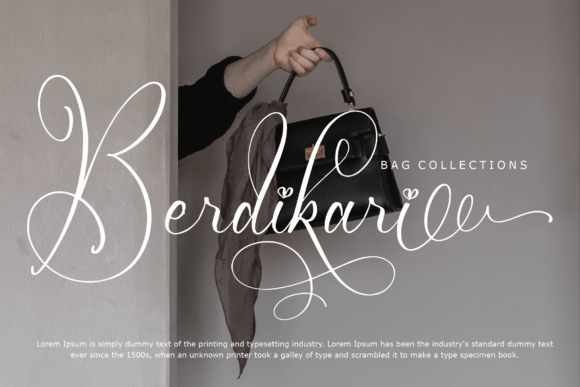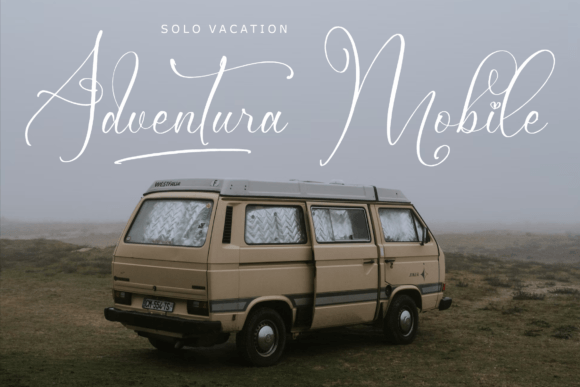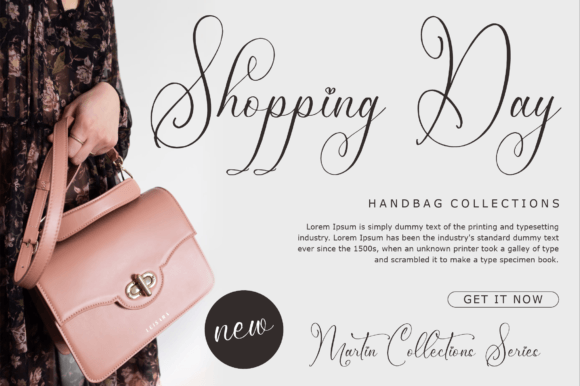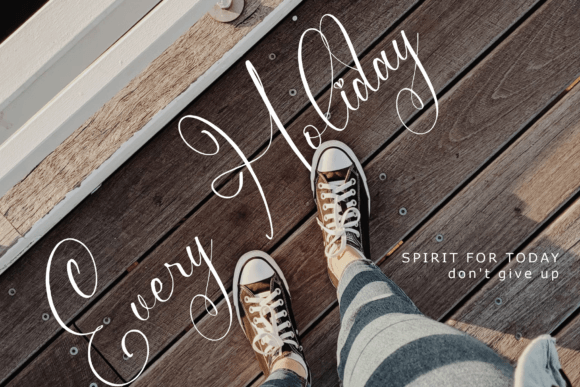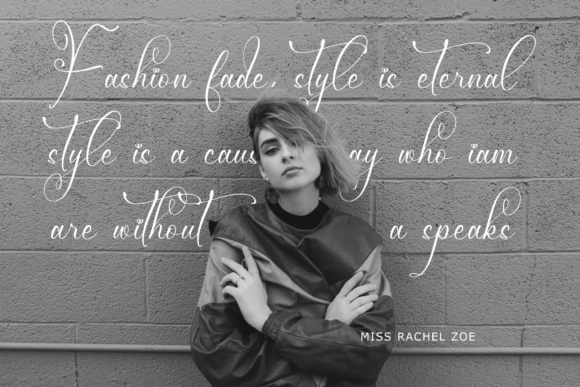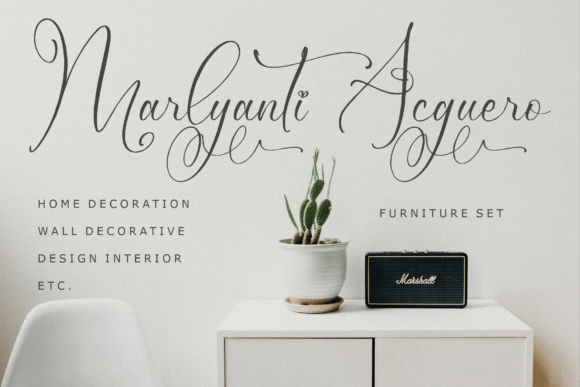
Introduction to Mendikari Font
As a designer, have you ever stumbled upon the perfect font that elevates your entire creative project? For me, that moment came when I discovered the Mendikari Font – a luxury script that exudes elegance and sophistication. Its unique style and modern look instantly caught my attention, and I knew I had to learn more about this design resource.
With its versatility in use, the Mendikari Font is perfect for designing luxury logos, book titles, fashion brand identities, magazine layouts, and more. Its high-quality design makes it an ideal choice for designers seeking to add a touch of luxury to their projects. Whether you’re working on a free download or a paid design, the Mendikari Font is sure to impress with its transparent background and exquisite details.
As a valuable addition to any designer’s toolkit, the Mendikari Font offers endless possibilities for creative expression. In this article, we’ll delve into the world of this stunning typeface and explore its features, uses, and benefits for designers.
Key Features of Mendikari Font
- High-quality design for creative projects, ideal for graphic designers and artists.
- Transparent background, allowing for seamless integration into various design elements.
- Perfect for creating eye-catching titles, headings, and other typography elements in your design project.
Honest Review: Mendikari Font
As a designer, I’m always on the lookout for high-quality design resources to elevate my creative projects. The Mendikari Font is one such find that has caught my attention.
What works well: ✨ The font’s unique blend of modern and traditional elements makes it perfect for projects that require a touch of cultural flair. Its high-quality design ensures seamless use in various creative projects, from branding to editorial content.
Here are some key features that make the Mendikari Font stand out:
- Transparent background: The font’s transparent background allows for easy overlaying on images, making it ideal for creative projects that require visual depth.
However, I do have a few reservations: ⚠️ The font’s limited character set may not be suitable for projects that require a wide range of special characters or symbols.
Overall, the Mendikari Font is a valuable addition to any designer’s toolkit. Its unique design and high-quality construction make it perfect for creative projects that require a touch of cultural flair. With its free download option, it’s an excellent choice for designers on a budget.
Mendikari Font
Tips for Getting the Most Out of Mendikari Font
Use the transparent background feature to create stunning graphics and illustrations. Experiment with different font sizes and colors to add depth and visual interest to your design.
The Mendikari Font is perfect for creative projects such as blog posts, social media graphics, and marketing materials. It’s also great for designing logos, business cards, and other print materials.